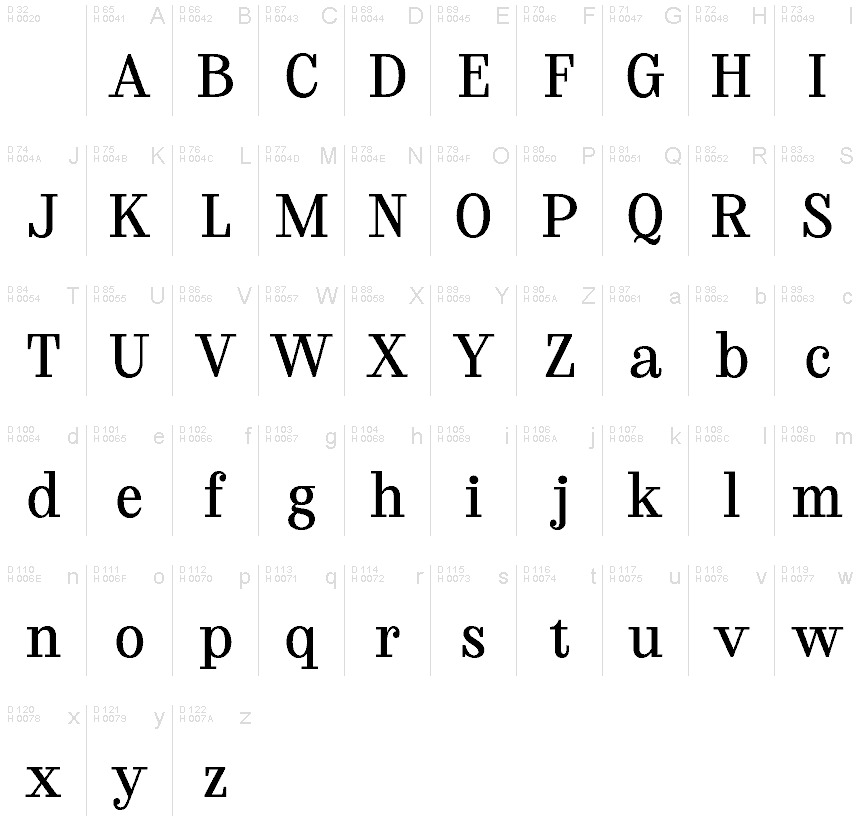
CS Glinda Regular Demo
CS Glinda font by Craft Supply Co. is a dazzling serif typeface with a touch of elegance and luxury. The sophisticated letters are complex where they feature extensive meticulous details, traditional influences, and professional design style. Most importantly, this font will give your content an everlasting classic look.
Use it in magazine covers, beauty brochures, skincare packaging designs, logo ideas, cosmetics identities, fashion branding designs, apparel promotional graphics products and more. CS Glinda is made free for everyone so you can create any projects with it without spending a penny!